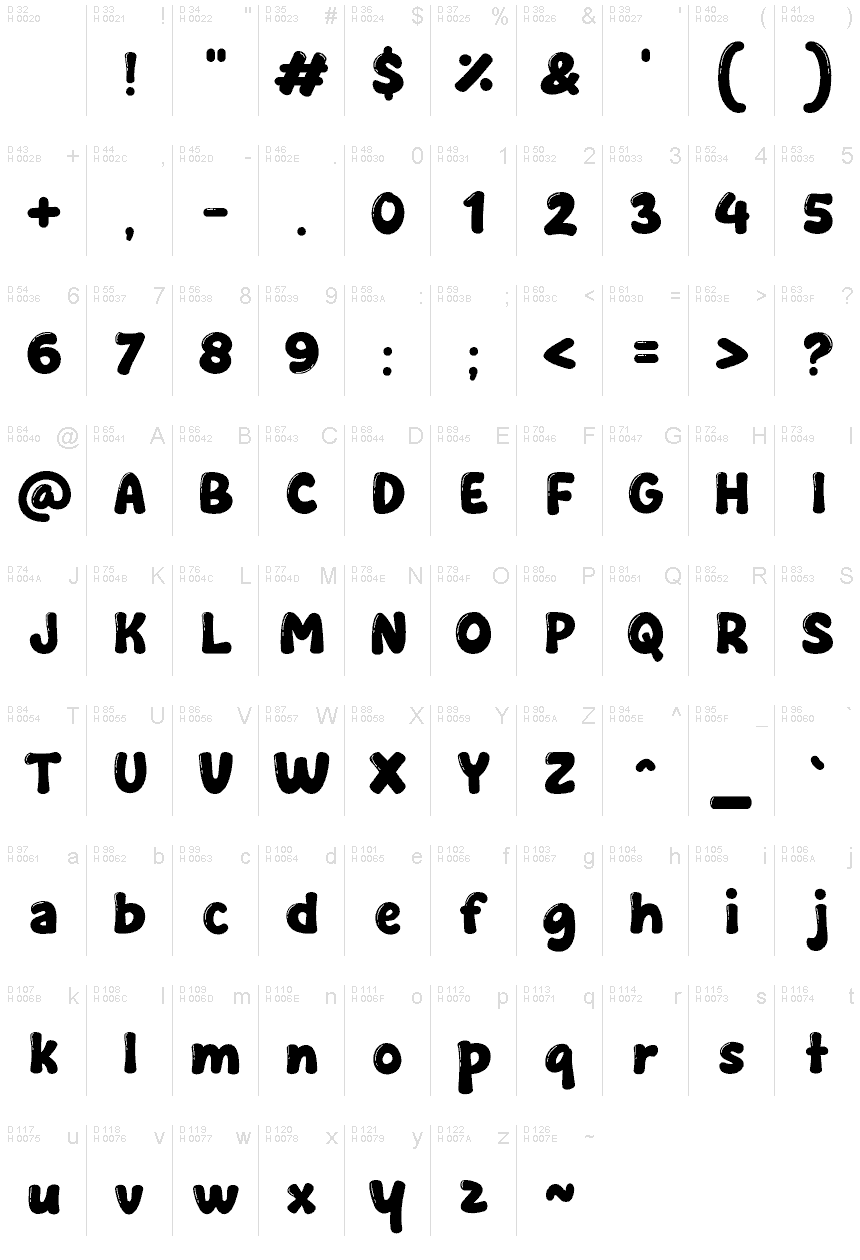
Donuts King
Donuts King font by MJType is a display typeface with cartoon features. The bold font is bubbly and friendly. Its overall shape and smooth curves design make it perfect for everyday casual use where messages are empathetic, welcoming, youthful, and playful too.